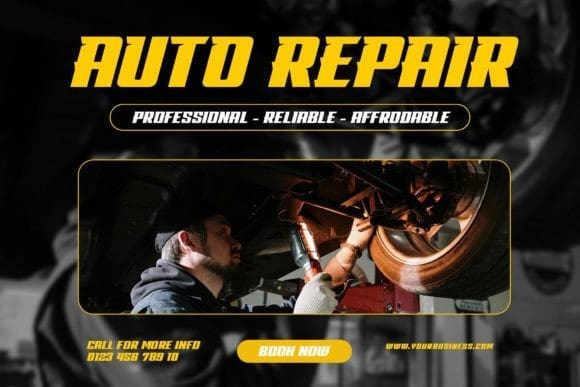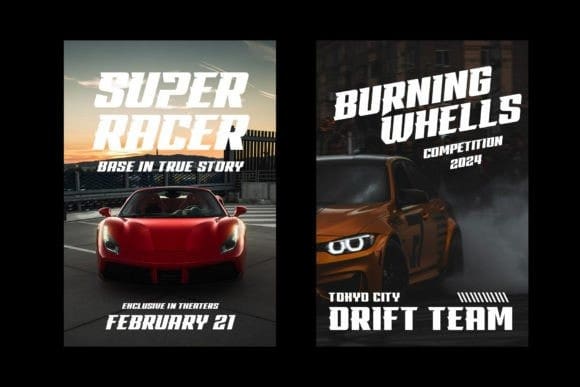
Best Racer Font
Best Racer Font is a cool, bold display font designed to evoke speed and excitement. With its sleek lines and dynamic curves, this font exudes energy and movement, making it ideal for automotive-related designs, sports posters, and any project that needs a touch of adrenaline-fueled style.
Classification: Display Fonts, Stencil Fonts